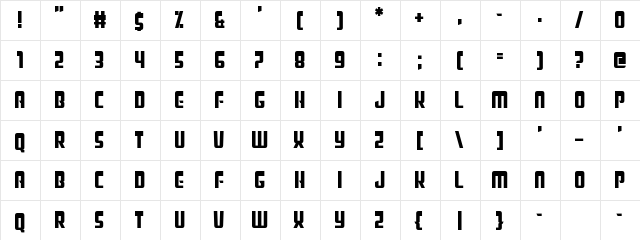
Star Trebek Regular
| Designer | Allison James |
Design Context for Star Trebek Typeface
Star Trebek takes a measured approach to typography — its balanced proportions and neutral character make it a reliable workhorse for both digital and print work.